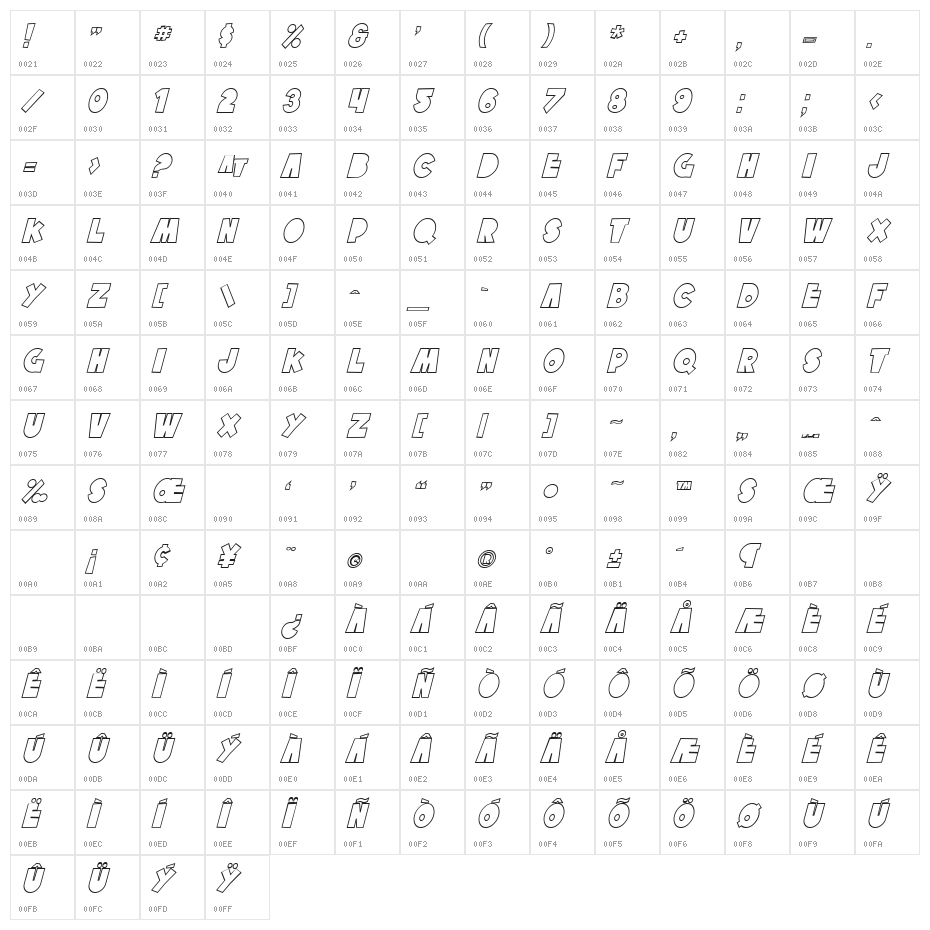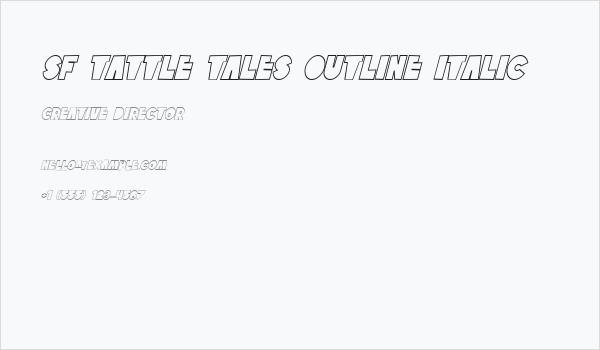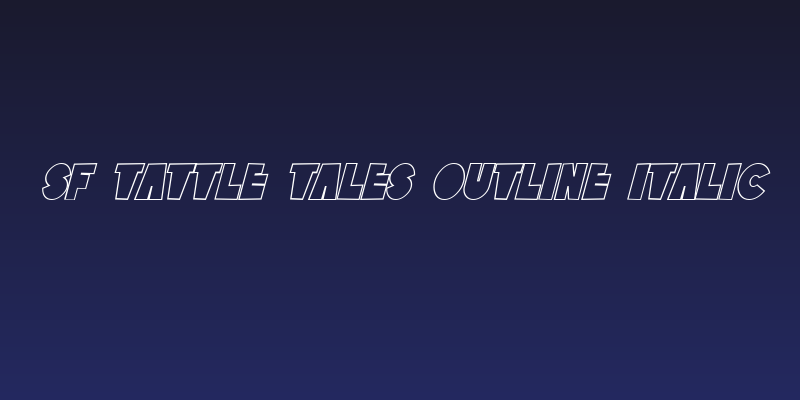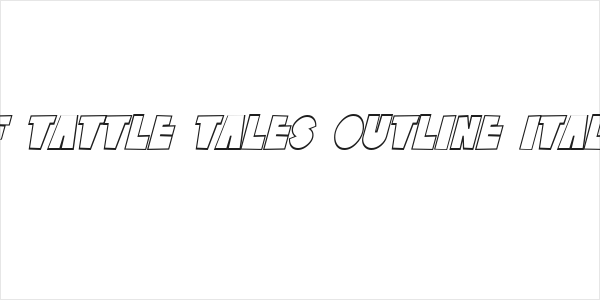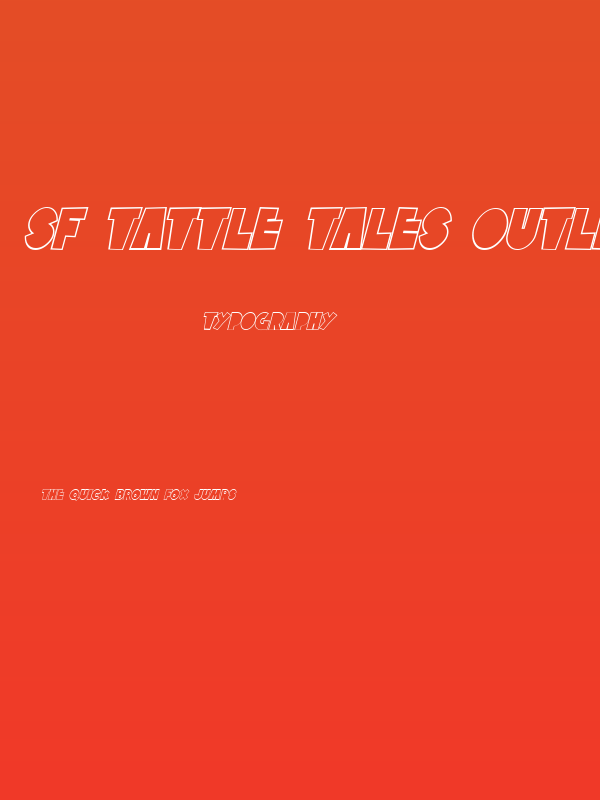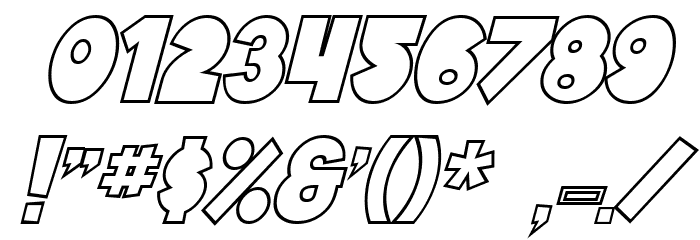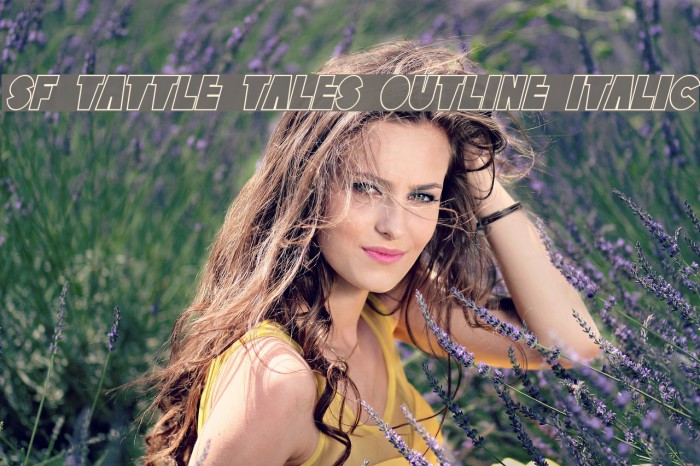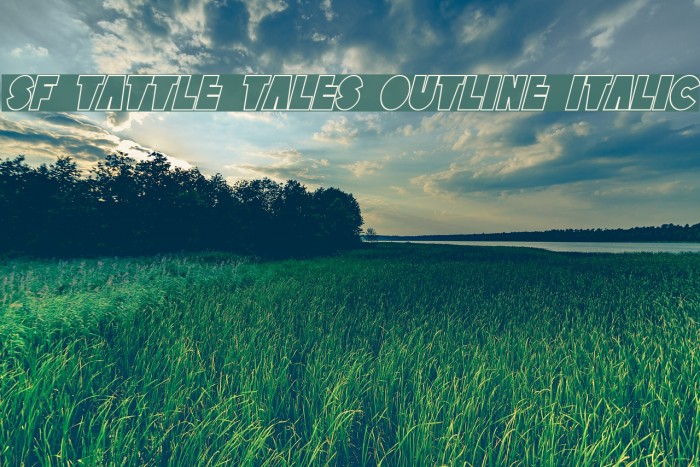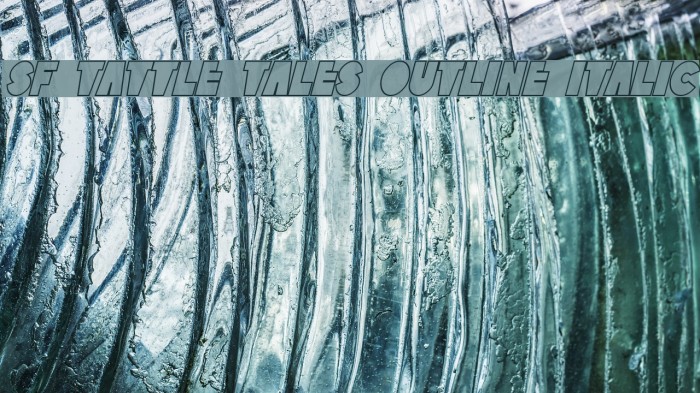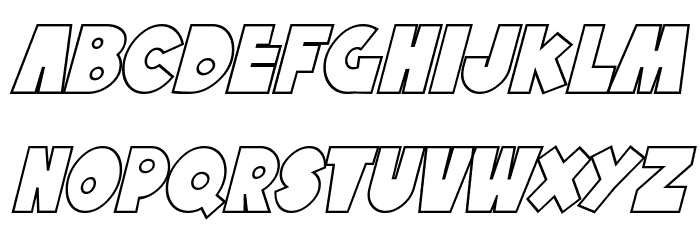
SF Tattle Tales Outline Italic Font
SF Tattle Tales Outline Italic Description
This font features a bold, outlined style with a distinct italic slant, giving it a dynamic and energetic appearance. The characters are uppercase and lowercase, with numbers and a selection of special characters. The outlines are clean and consistent, providing a modern and playful look. The font's geometric shapes and sharp angles contribute to its contemporary feel, making it suitable for eye-catching designs. The spacing between characters is normal, ensuring readability while maintaining its unique aesthetic. This font is ideal for projects that require a bold statement or a creative touch.